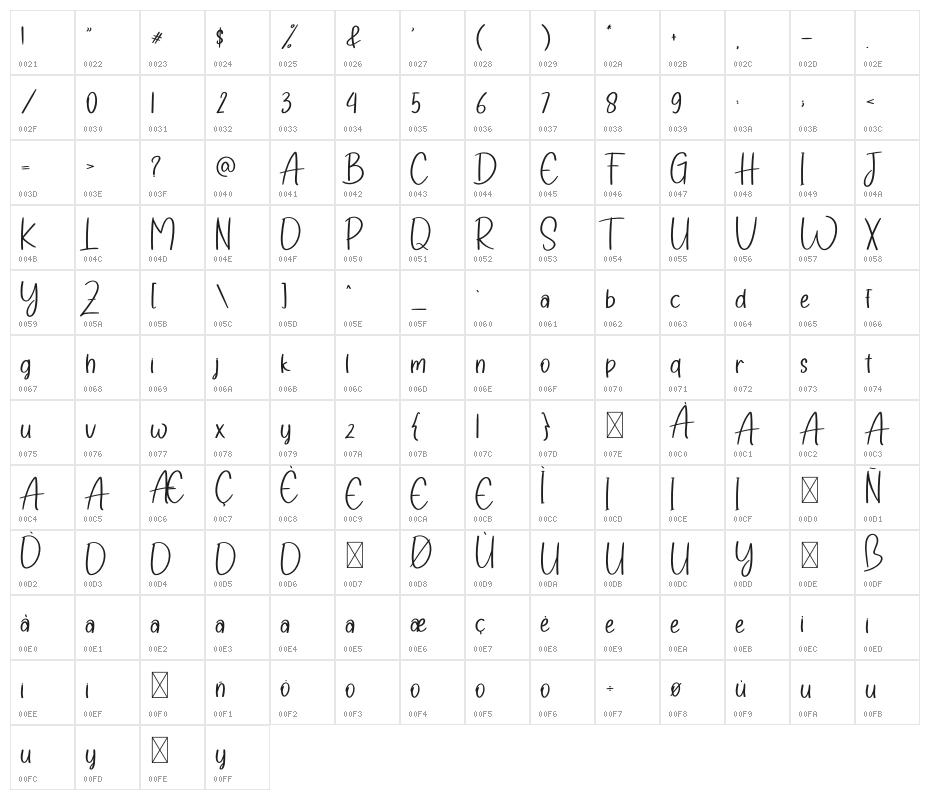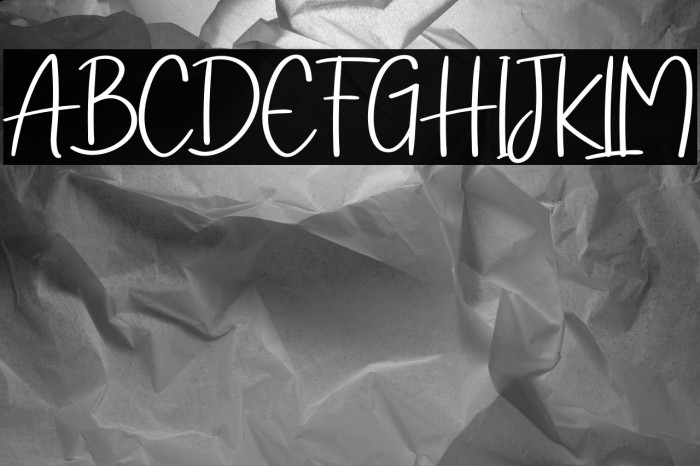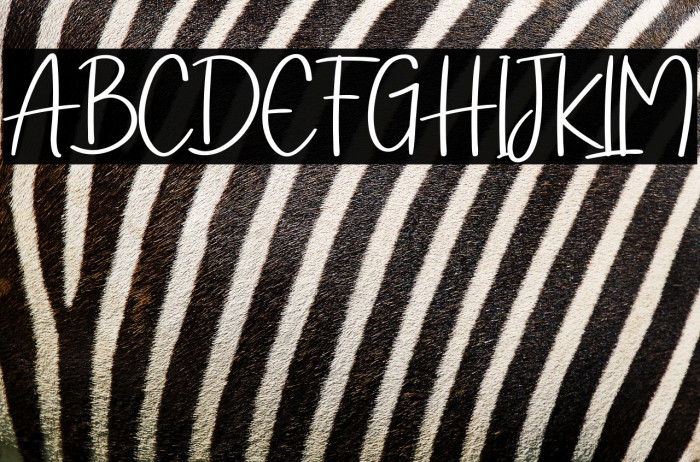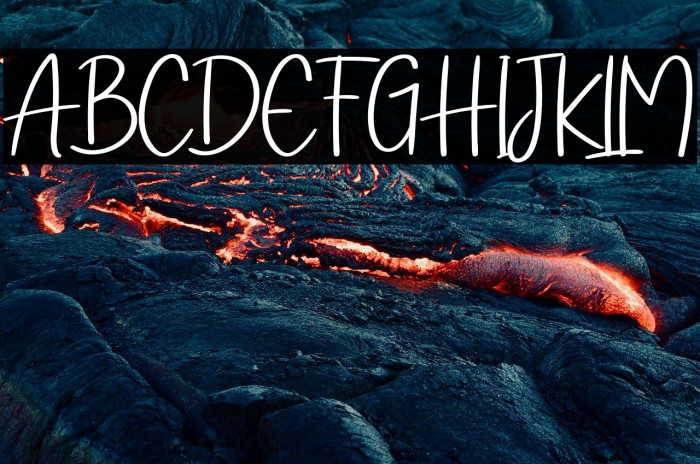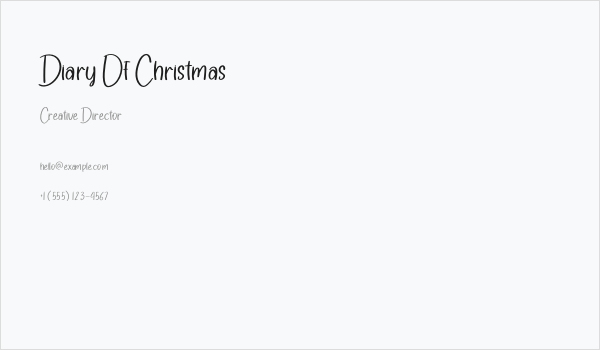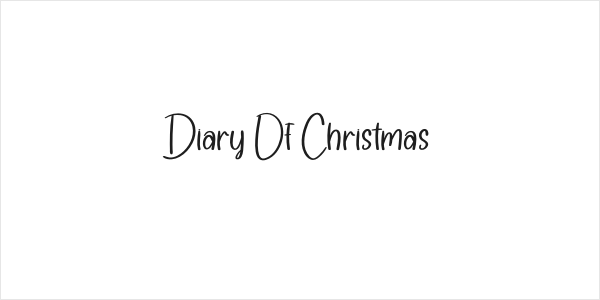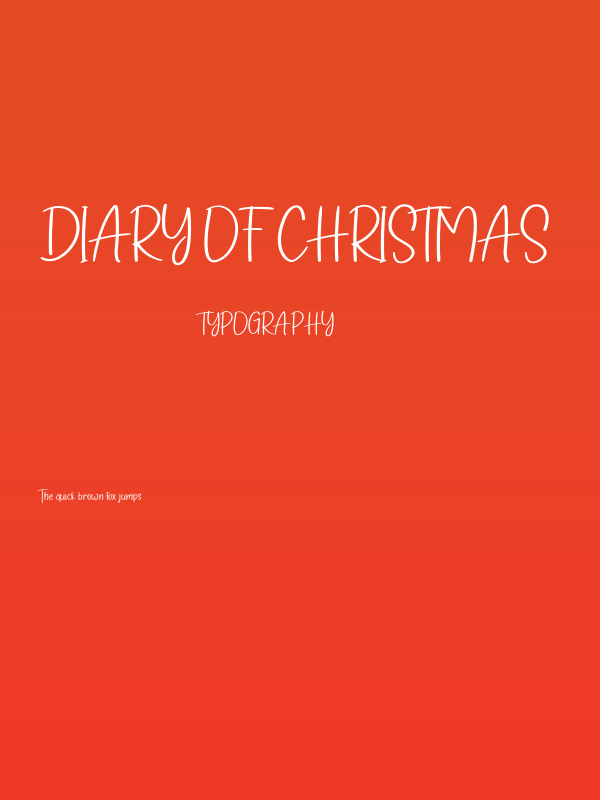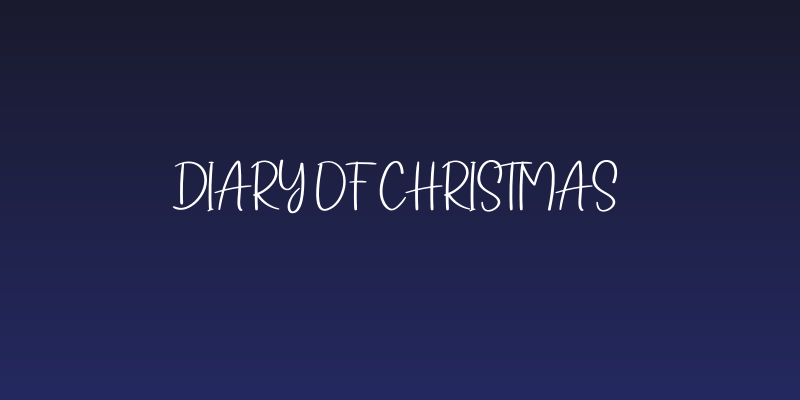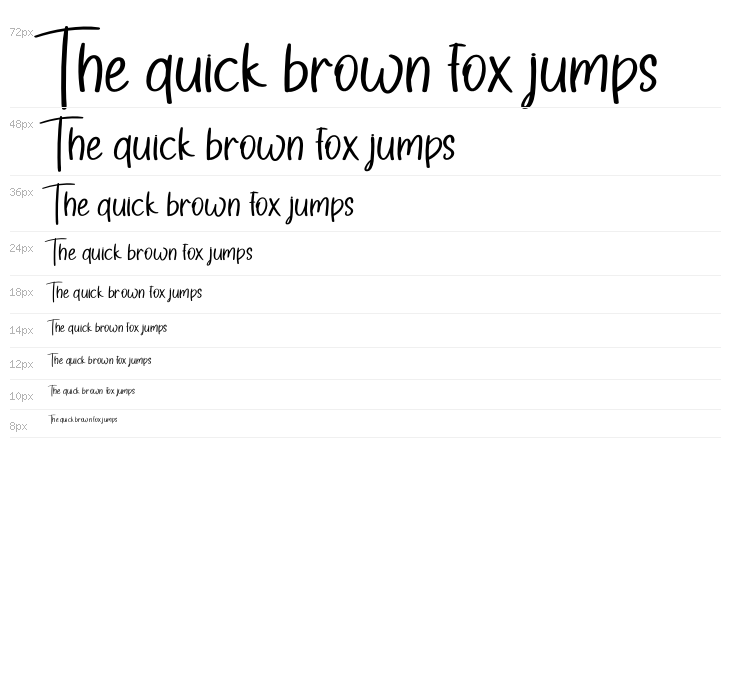
Diary Of Christmas Font
Diary Of Christmas Description
A playful, handwritten font with tall, narrow characters and a casual, friendly appearance.
| Proposed Projects | Greeting cards, invitations, casual branding. |